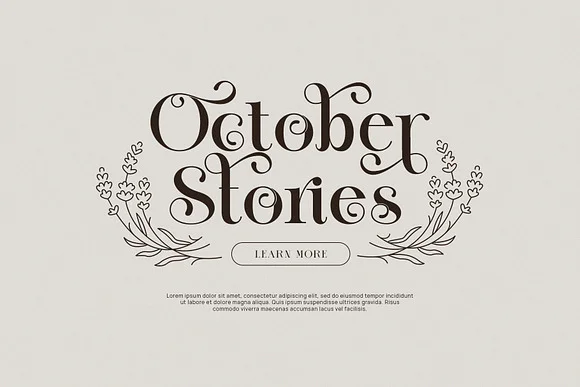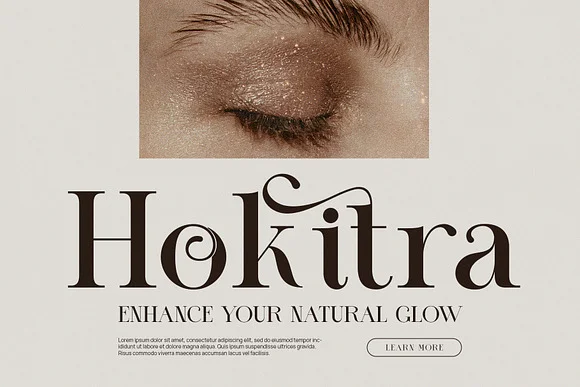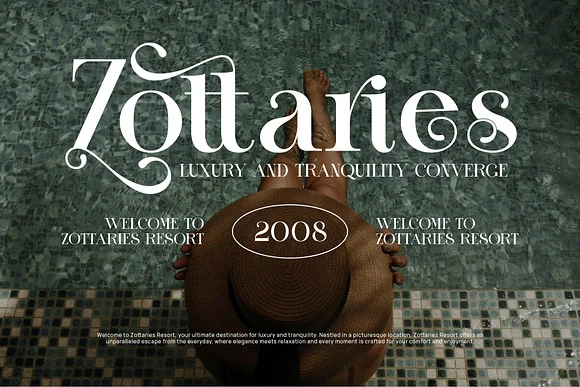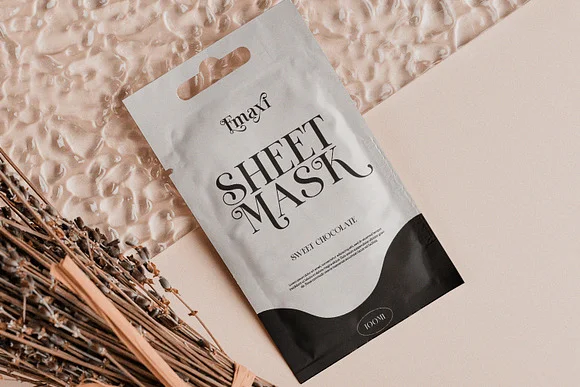
Emitron Elegant Serif Font
Emitron Elegant Serif stands out as a reliable typeface choice for designers seeking clarity without sacrificing character.